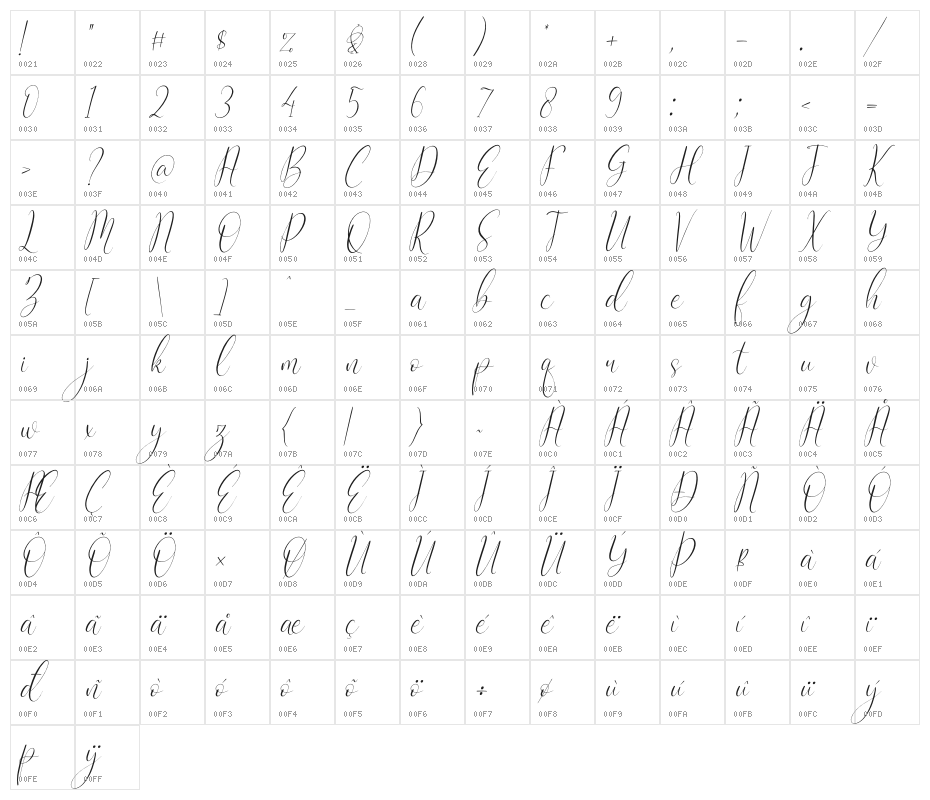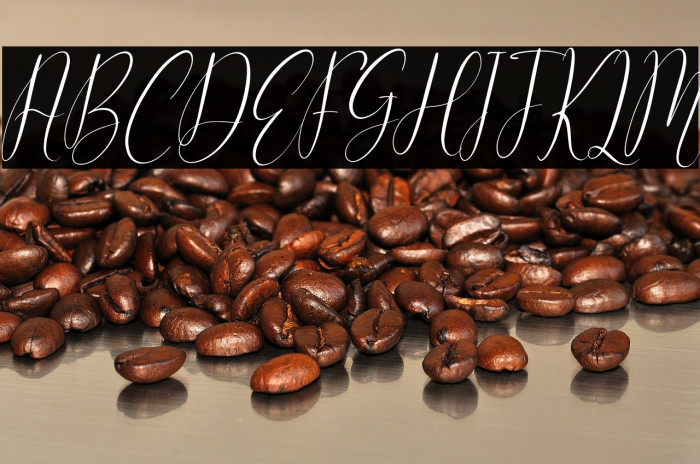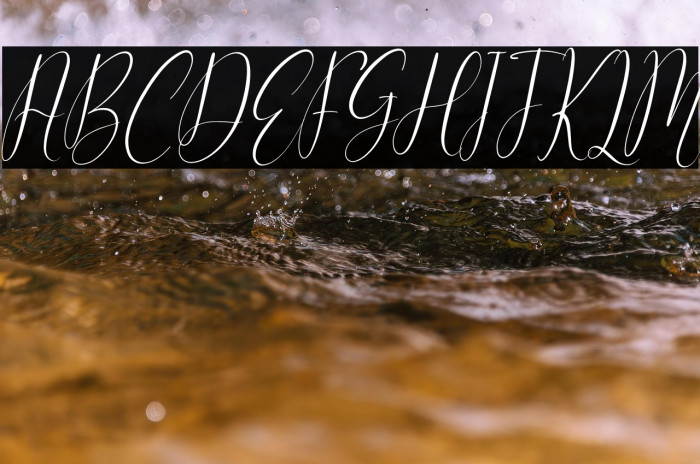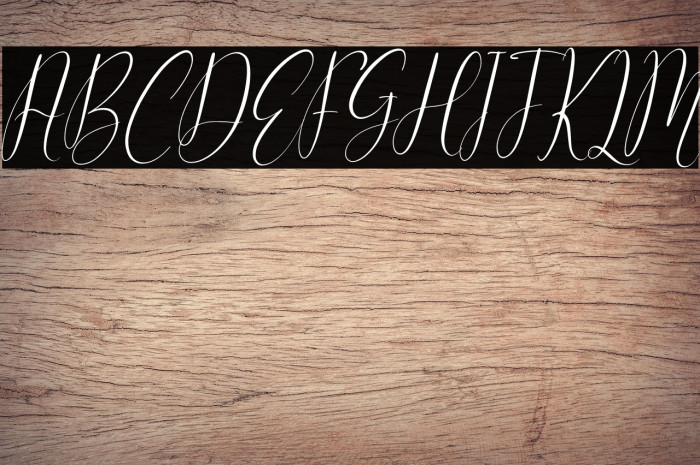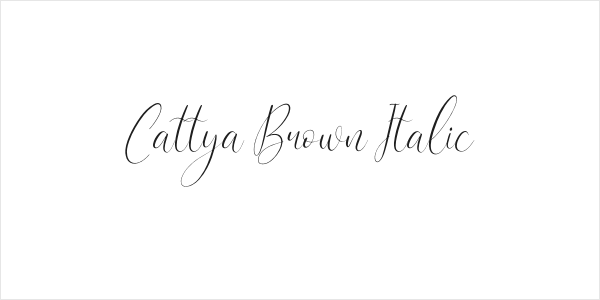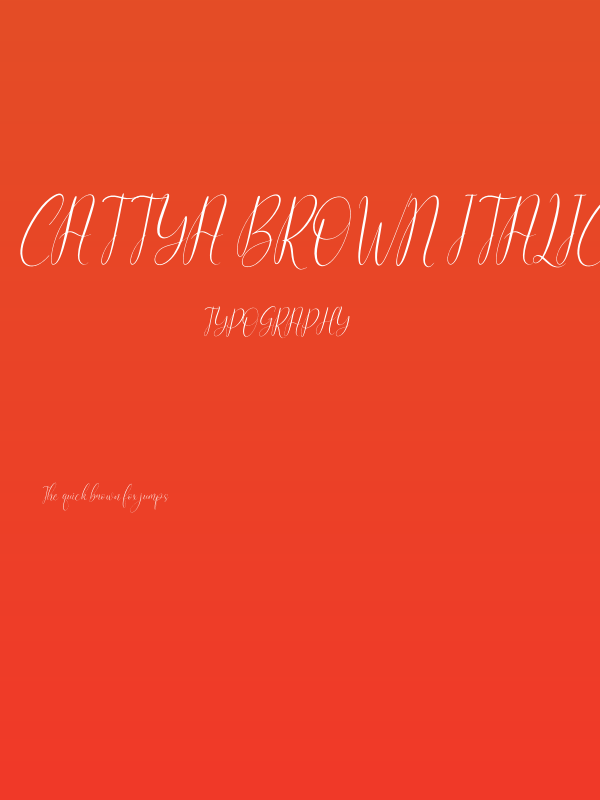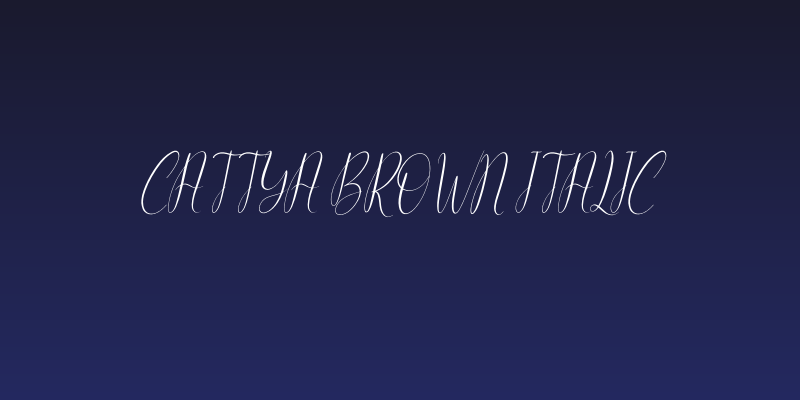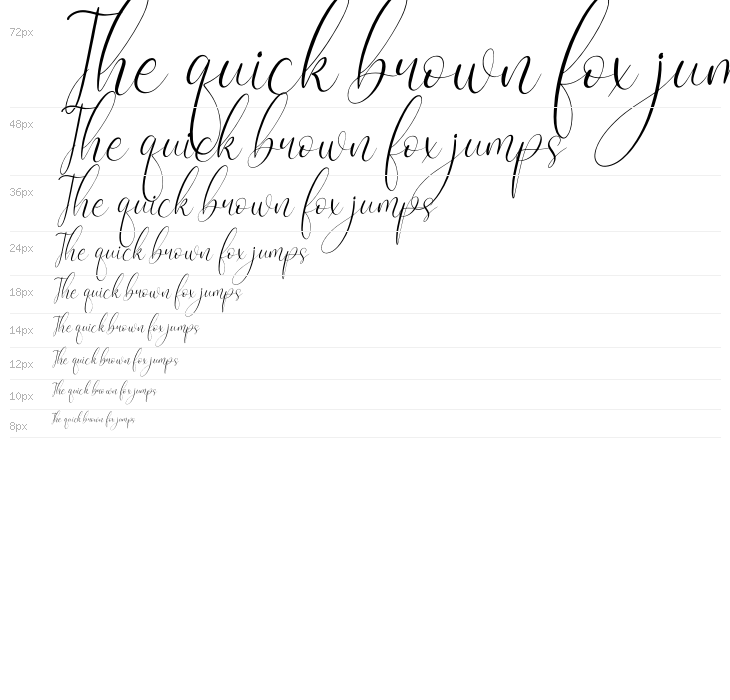
Cattya Brown Italic Font
Cattya Brown Italic Description
This elegant script font features a flowing, cursive style with high contrast between thick and thin strokes. The characters are connected, creating a seamless and fluid appearance. The uppercase letters are tall and graceful, while the lowercase letters maintain a consistent slant, enhancing the italicized effect. The numerals and special characters are designed with the same attention to detail, ensuring a cohesive look across all elements. This font exudes sophistication and is perfect for projects that require a touch of elegance and refinement.
| Proposed Projects | Ideal for wedding invitations, elegant branding, luxury packaging, and sophisticated editorial design. |